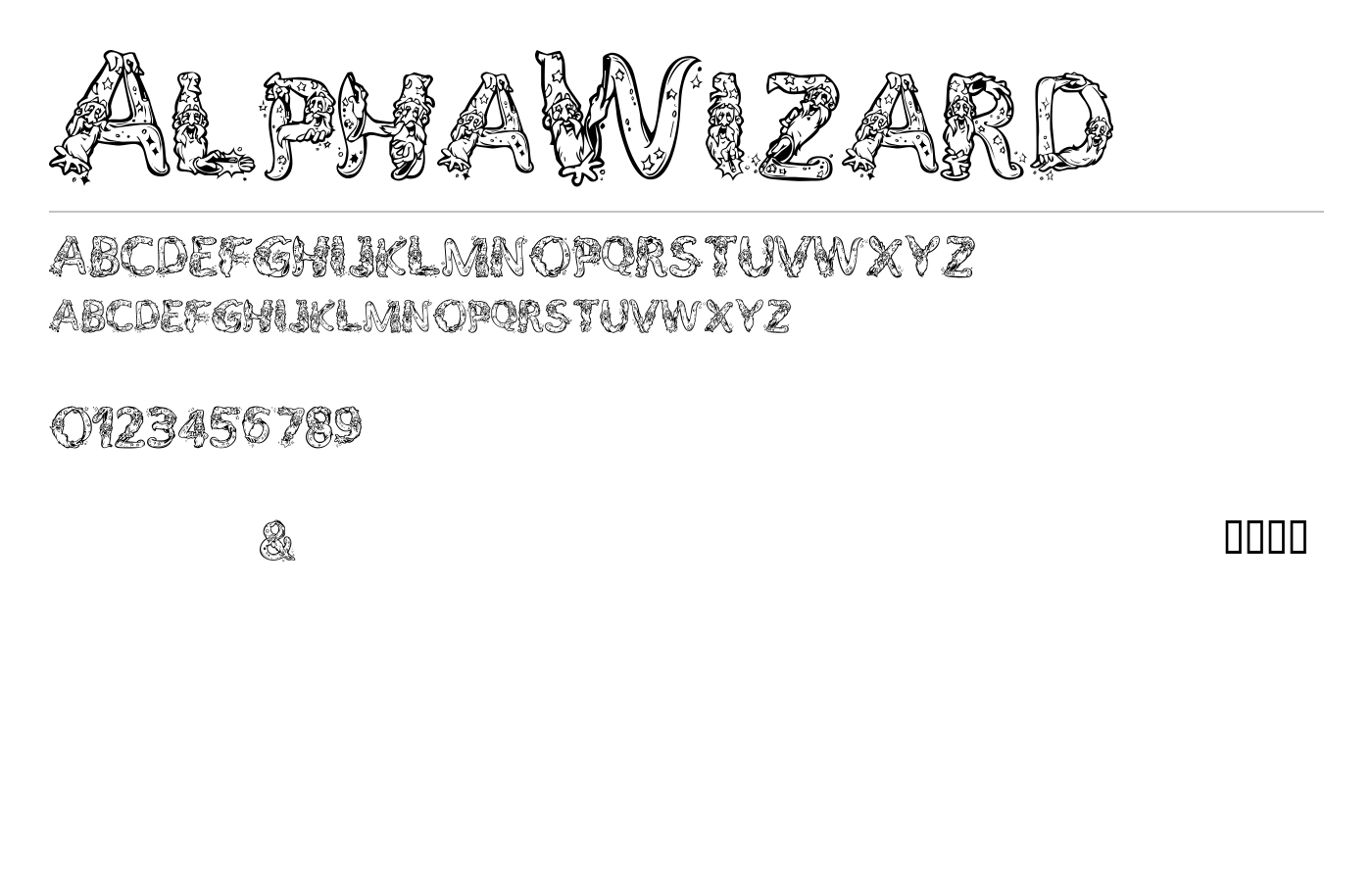
AlphaWizard is a decorative serif font featuring whimsical, animated wizard-themed designs integrated into bold, highly detailed letterforms. Its playful and intricate style makes it perfect for fantasy-themed projects, children’s books, or creative posters where a magical, enchanting mood is desired. Due to its ornate nature, it works best in large display settings rather than body text, adding charm and character to headlines and branding.
AlphaWizard Font